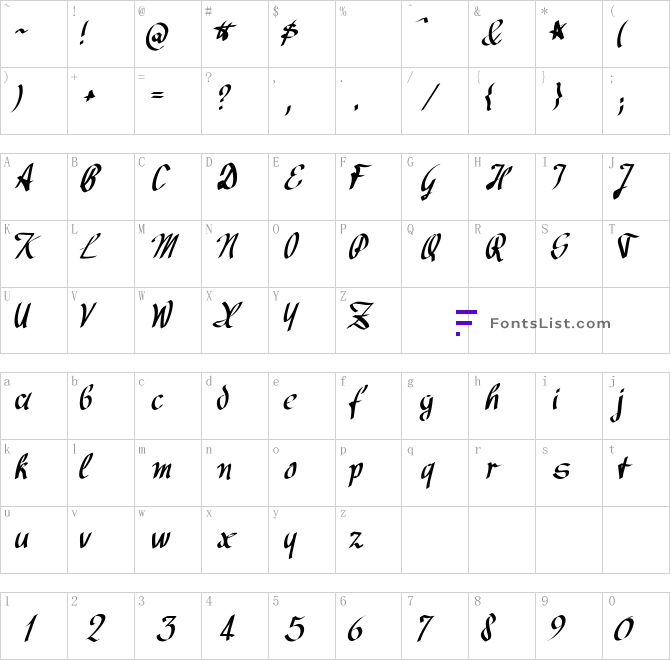
- Font Name:Avocado
Avocado.ttf is a very beautiful artistic font, Avocado.ttf is widely used in the design and printing of various books and pictures,Avocado.ttf has a strong visual impact,Avocado.ttf is a commonly used font in newspapers, magazines and books, and is used in posters, e-commerce Poster design, store design, logo design, font design and other fields.Avocado.